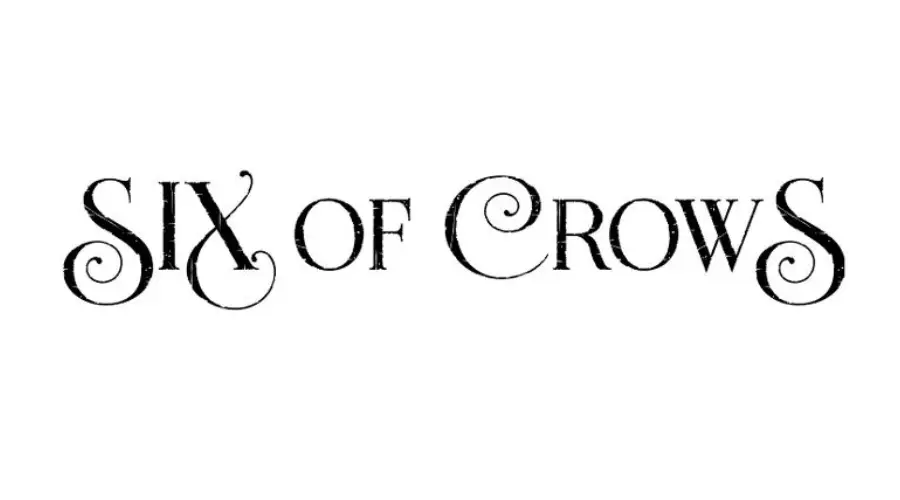
Short answer: LHF Encore Distressed is a close visual match for the ornate title treatment on the referenced Six of Crows cover, but no publisher source reviewed here credits it as the original cover font. Novelia Pro Small Cap is a general alternative, not an official match.
Six of Crows Font
Edition used for the comparison
This guide uses Macmillan’s Square Fish trade-paperback listing, ISBN 9781250076960, as the edition reference. The official publisher page identifies Leigh Bardugo, the edition, and its February 6, 2018 on-sale date. Other hardcovers, collector’s editions, territories, and screen tie-ins use different cover art, so the conclusion should not be applied to every edition.
Why LHF Encore looks close
The preview title uses high-contrast capitals, long curled swashes, and worn edges. Letterhead Fonts lists LHF Encore by John Davis and includes a Distressed style in the family. Those traits create a strong visual comparison, but the cover’s swash placement and letter spacing can include custom composition. The foundry page does not claim that Encore was used on this book.